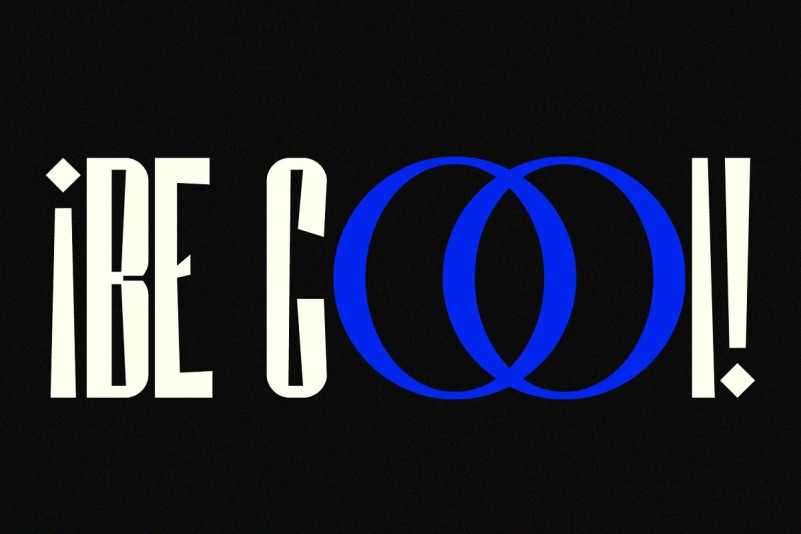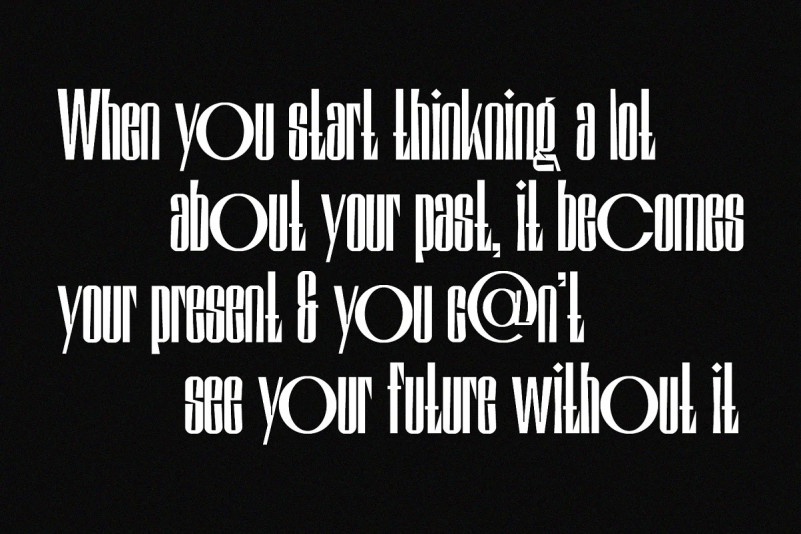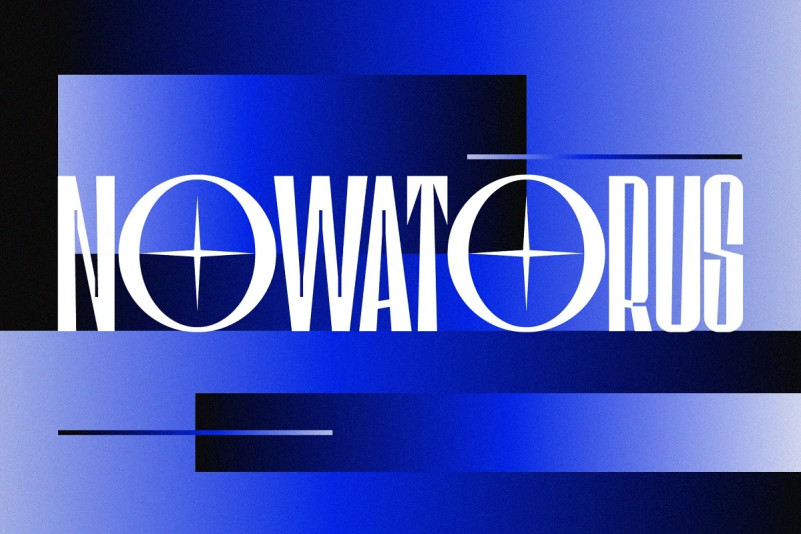
SK Nowatorus Font
SK Nowatorus Display Font is a modern display font created by Shriftovik Type Foundry with bohemian motives. This typeface challenges the usual ideas about the structure of symbols and harmony in the typesetting line. The typeface symbols are based on the average contrast of thicknesses and on the contrast of the shapes of the symbols themselves. The font combines both narrow characters of the main set and wide additional ones. This, coupled with a wide range of alternatives and ligatures, gives huge opportunities for creative experiments. SK Nowatorus supports a multilingual set of Latin Pro and Cyrillic Pro. This typeface is perfect for poster design and for a set of small text blocks due to the presence of a capital and lowercase set.